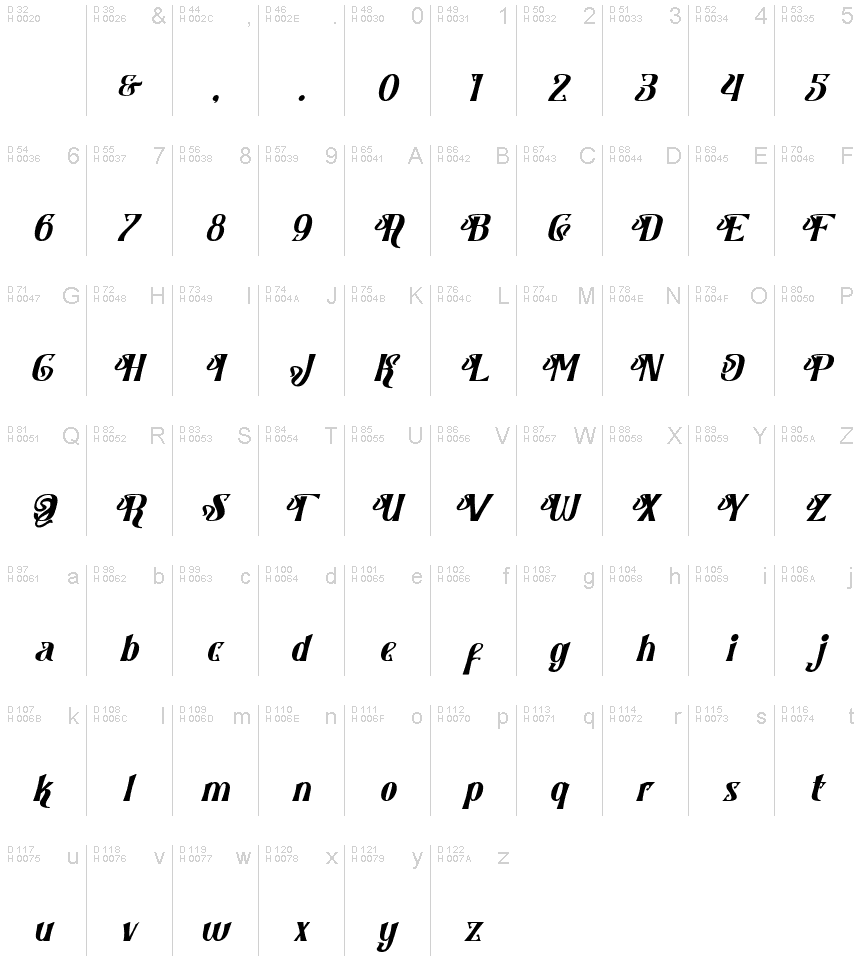
Qamassan-Demo Regular
Qamassan, designed by Anomali Creative, is a display font that adds a touch of vintage flair to any project. With its semi-bold weight, this typeface makes a bold statement without overpowering your content. Qamassan's unique style is perfect for branding projects, including logos and packaging design. It also works well for editorial designs such as book covers and magazine layouts. Additionally, its retro feel lends itself to creating eye-catching posters and promotional materials. Whether you're looking to add some charm to your digital designs or create a timeless print piece, Qamassan is the font for you.